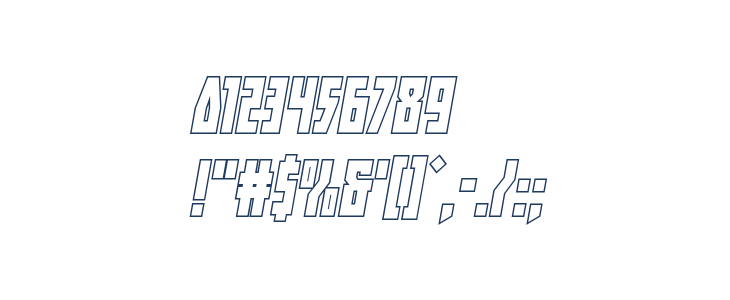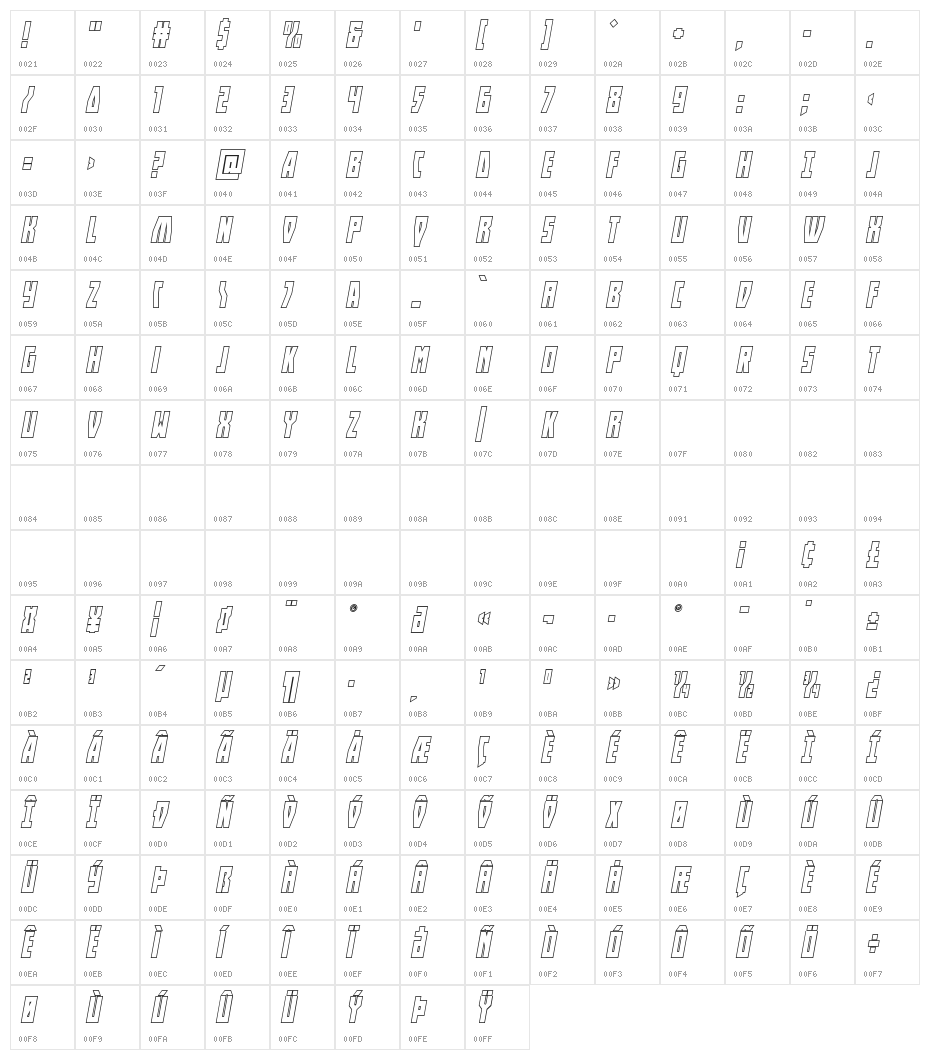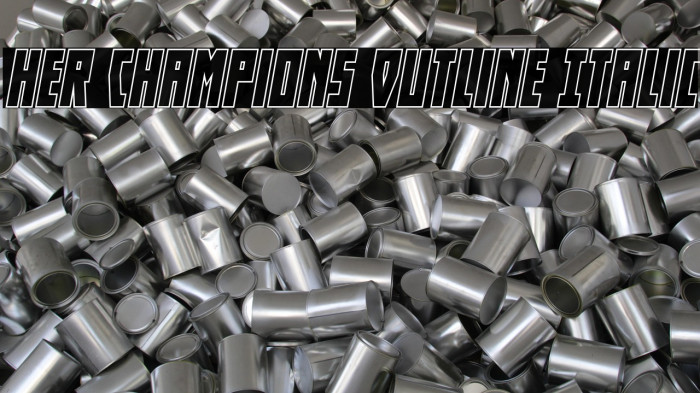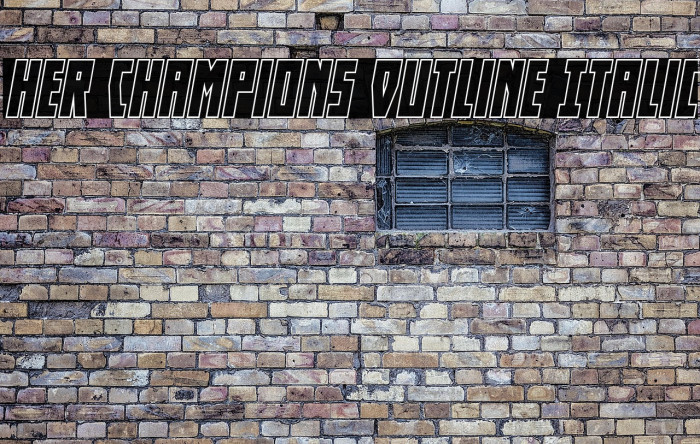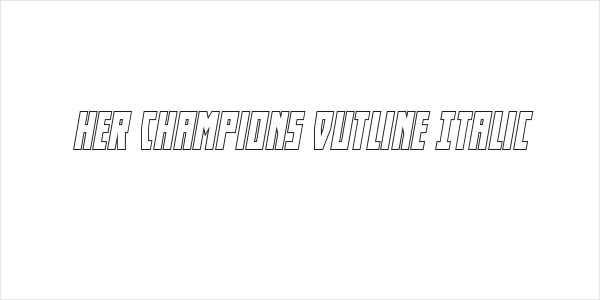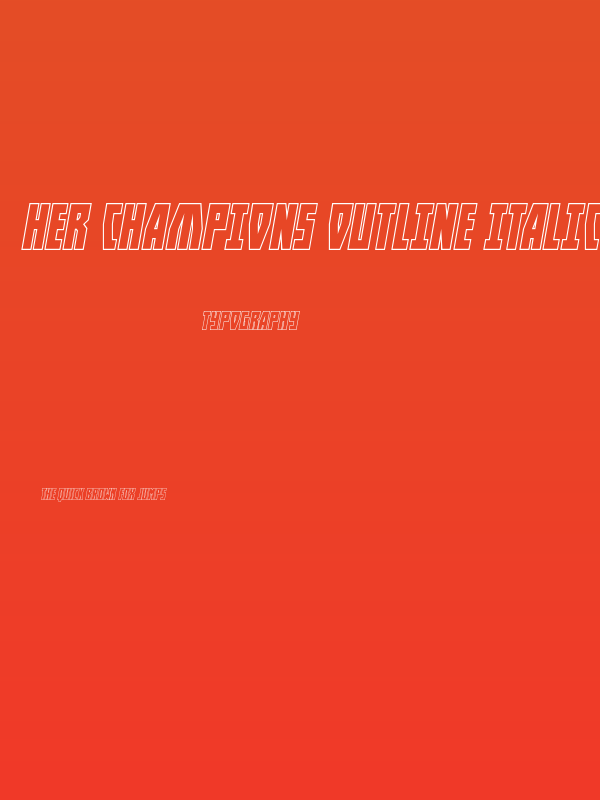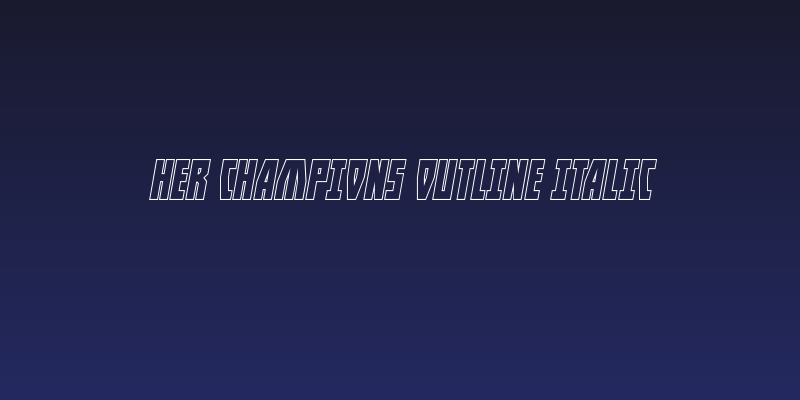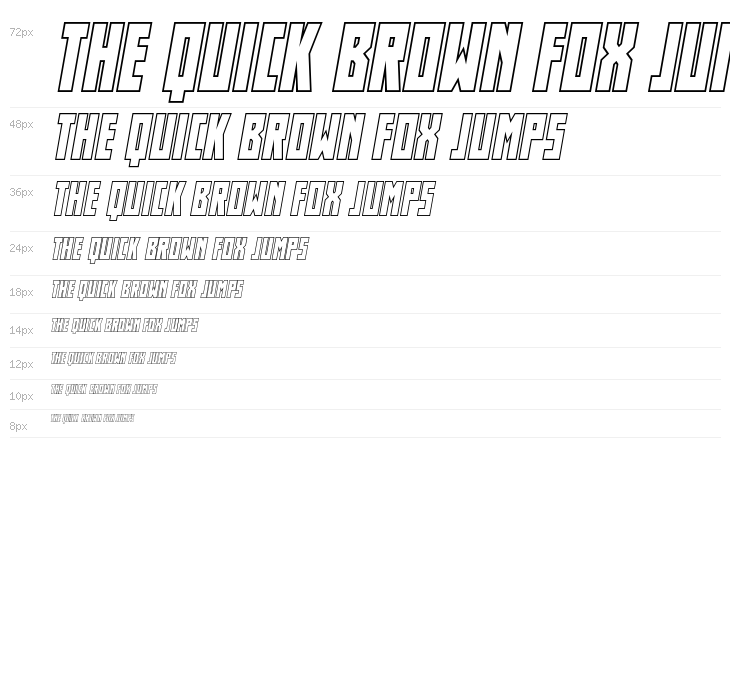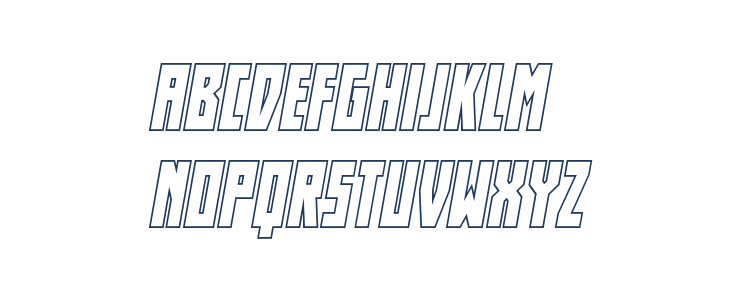
Her Champions Outline Italic Font
Her Champions Outline Italic Description
This font features a bold, outlined style with a strong geometric influence. The characters are italicized, giving them a dynamic and forward-leaning appearance. The uppercase letters are angular and sharp, with a consistent stroke width that enhances the outlined effect. The numbers and special characters maintain the same bold outline, ensuring uniformity across the font. The overall design is modern and eye-catching, suitable for projects that require a strong visual impact.